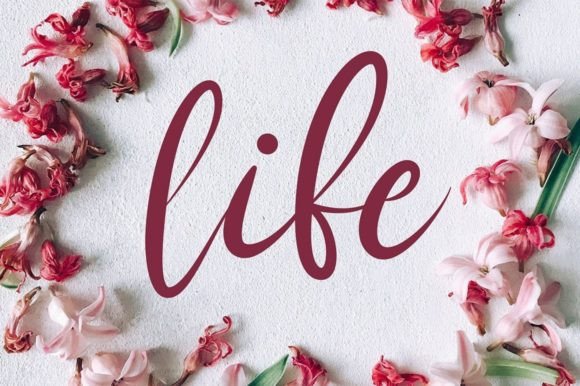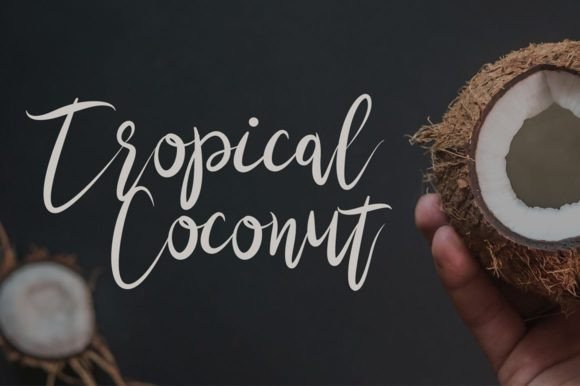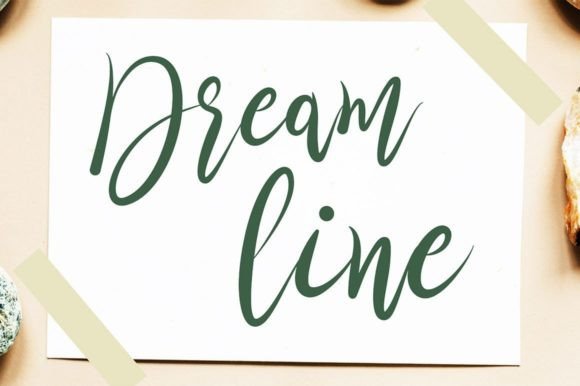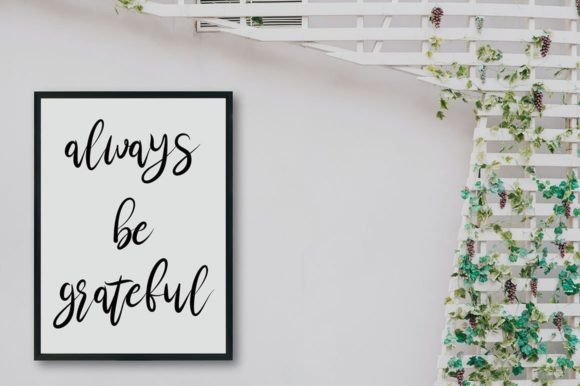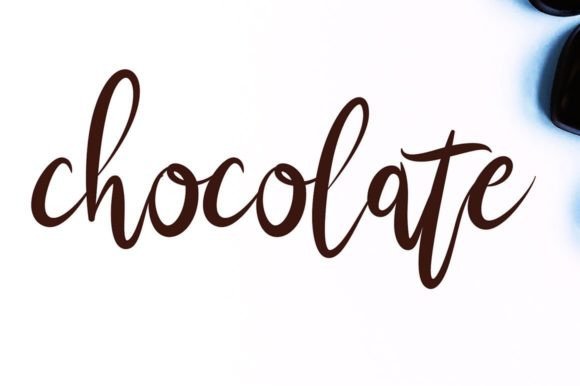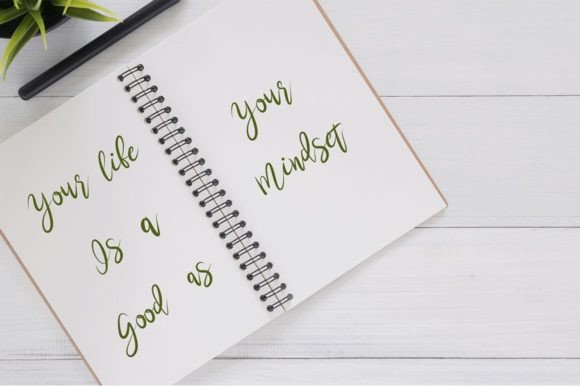
Introducing Happy Moment Font: The Ultimate Choice for Creative Expression
Are you tired of using the same old fonts for your creative projects? Look no further! Happy Moment Font is here to revolutionize the way you express yourself through typography. This cute and quirky handwritten font is designed to bring a friendly feel to any design, making it perfect for a wide range of applications.
The Perfect Font for Instagram and Beyond
With the rise of visual storytelling, Instagram has become a go-to platform for creatives to showcase their work. Happy Moment Font is specifically designed to make your Instagram posts stand out from the crowd. Its unique, handwritten style adds a touch of personality to any caption, making your content more engaging and relatable.
But Happy Moment Font is more than just a pretty face. Its versatility makes it suitable for a wide range of creative projects, from DIY crafts to professional branding. Whether you’re a designer, crafter, or small business owner, this font is sure to become your new best friend.
What Makes Happy Moment Font So Special?
So, what sets Happy Moment Font apart from other fonts on the market? Here are just a few reasons why this font is a game-changer:
- Cute and Quirky Design: Happy Moment Font boasts a playful, handwritten style that’s sure to bring a smile to anyone’s face.
- Friendliness: This font exudes warmth and approachability, making it perfect for brands and individuals looking to connect with their audience on a personal level.
- Versatility: Happy Moment Font is suitable for a wide range of applications, from digital media to print materials.
- Ease of Use: This font is incredibly easy to use, even for those with limited design experience.
With Happy Moment Font, the creative possibilities are endless. Here are just a few ideas to get you started:
- DIY Projects: Add a personal touch to your DIY projects, such as handmade cards, gift tags, and scrapbooking.
- Social Media Graphics: Elevate your social media presence with custom graphics, quotes, and captions that showcase your personality.
- Branding and Packaging: Use Happy Moment Font to create a unique brand identity that sets you apart from the competition.
- Stationery and Invitations: Create beautiful, one-of-a-kind stationery and invitations that make a lasting impression.
Tips for Getting the Most Out of Happy Moment Font
To truly make the most of Happy Moment Font, here are a few tips to keep in mind:
- Experiment with Colors: Don’t be afraid to try out different color combinations to find the perfect match for your design.
- Play with Pairings: Happy Moment Font pairs well with a variety of other fonts. Experiment with different combinations to find the perfect blend.
- Keep it Simple: Don’t overcomplicate your design. Happy Moment Font is beautiful on its own, so let it shine!
In conclusion, Happy Moment Font is a game-changer for creatives looking to add a personal touch to their designs. With its cute and quirky design, friendly feel, and versatility, this font is sure to become a staple in your design toolkit. So why wait? Download Happy Moment Font today and start turning your creative ideas into true pieces of art!